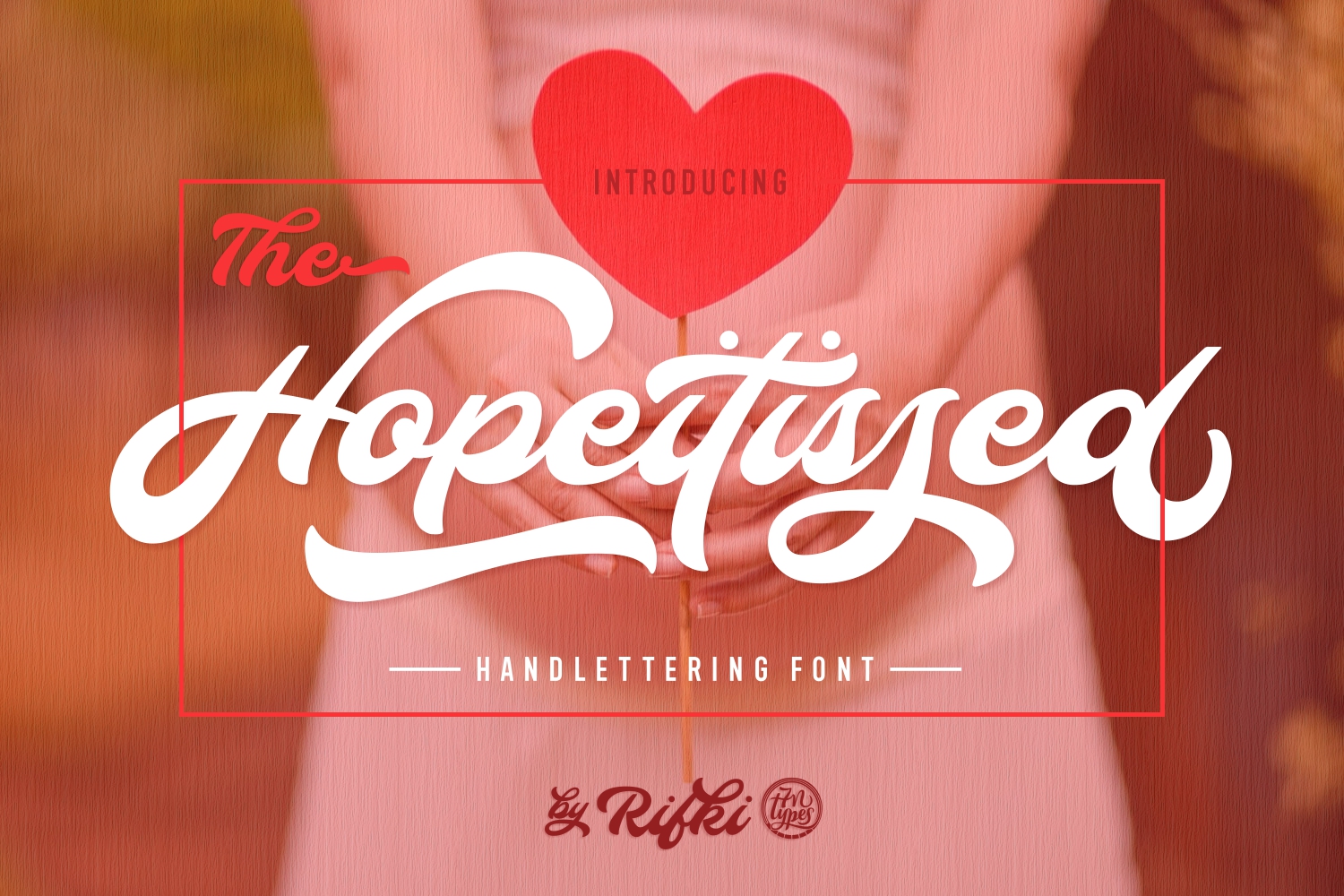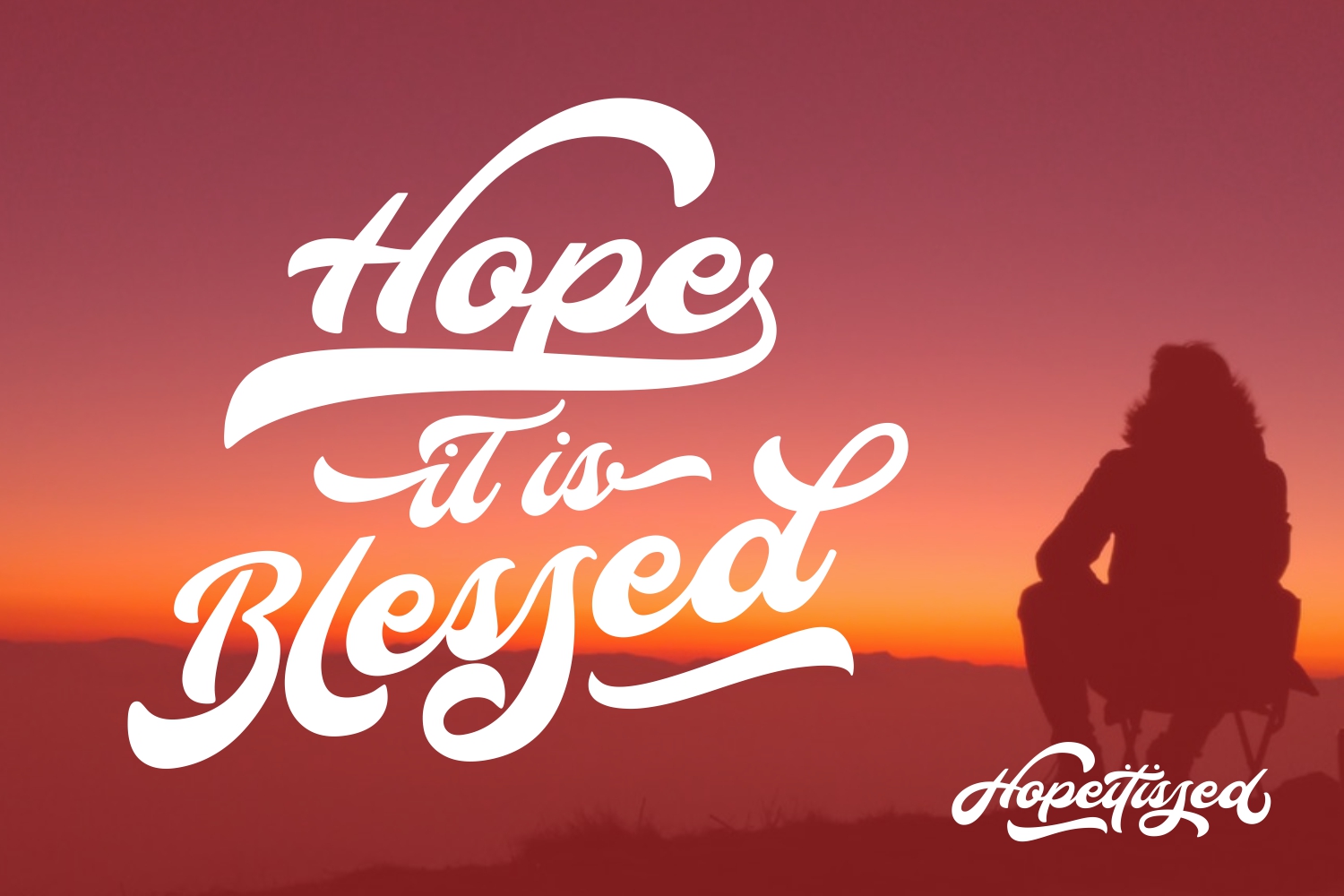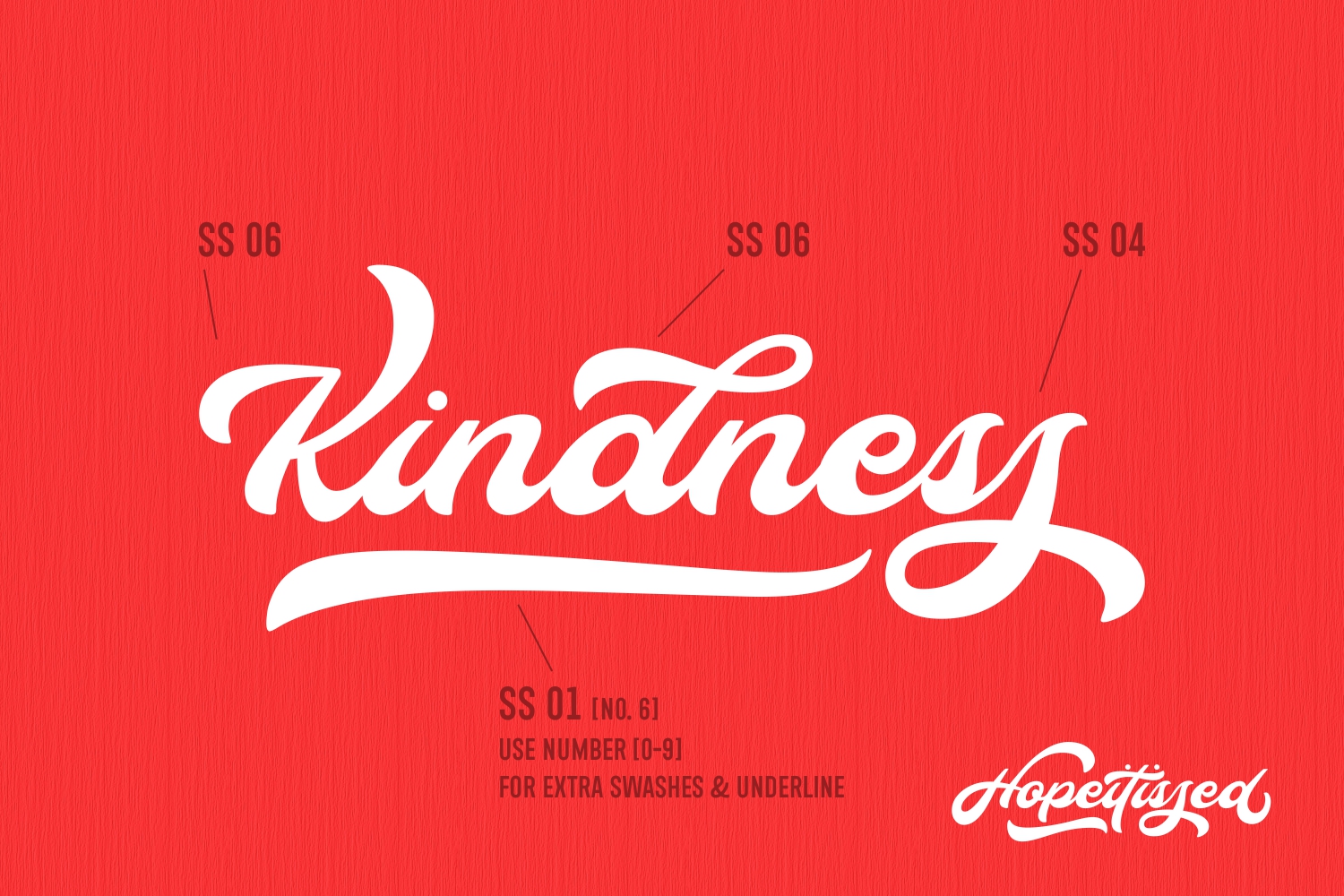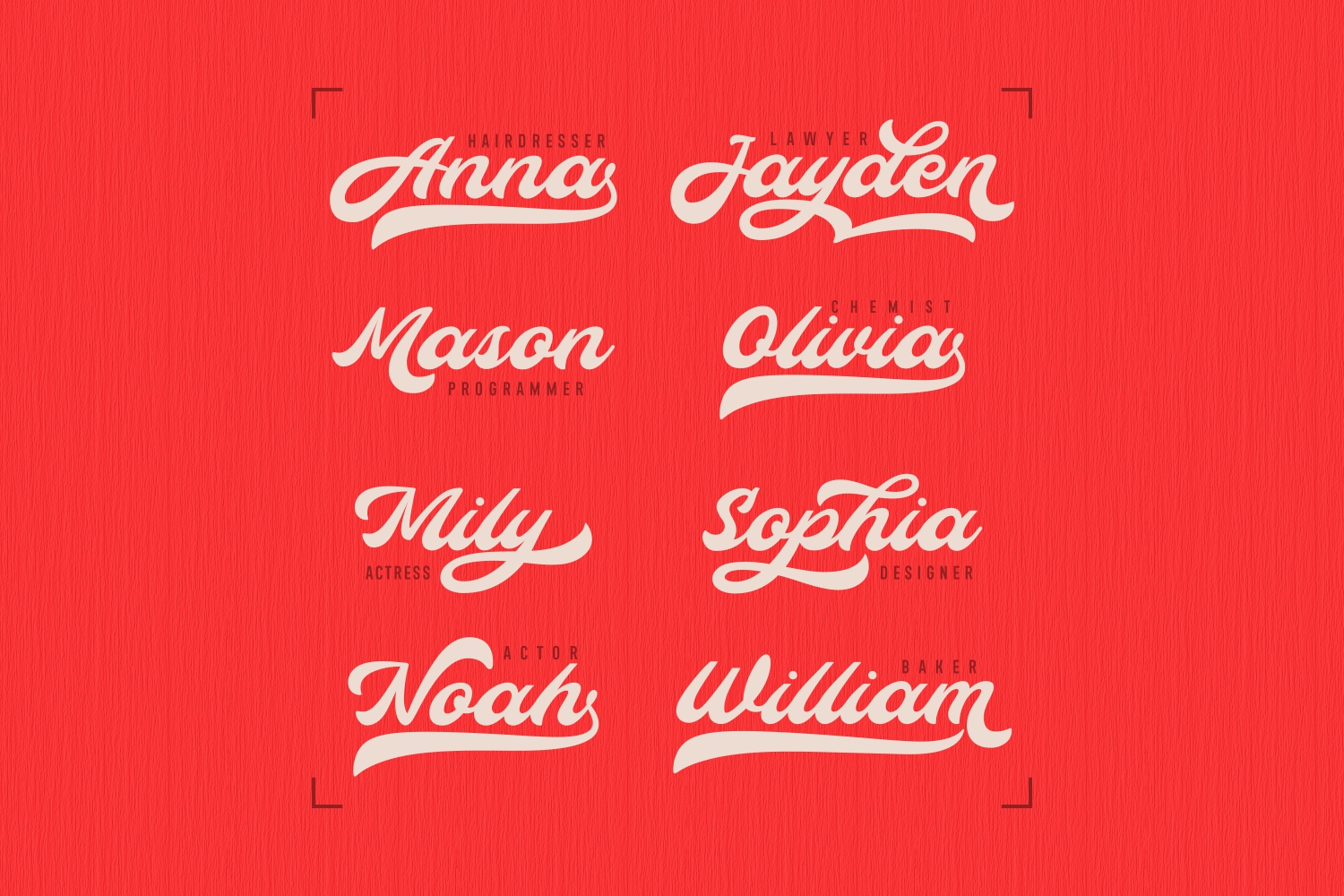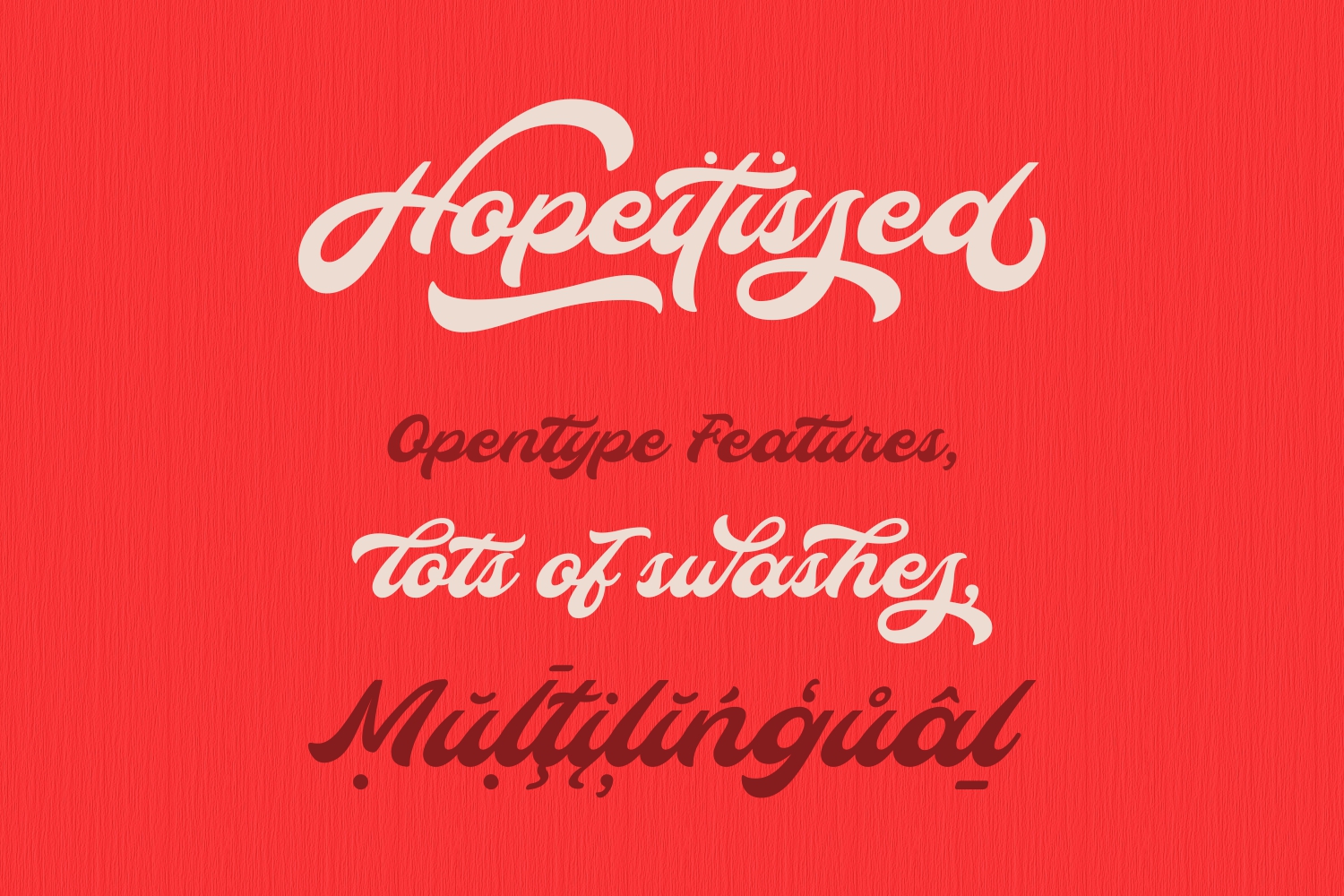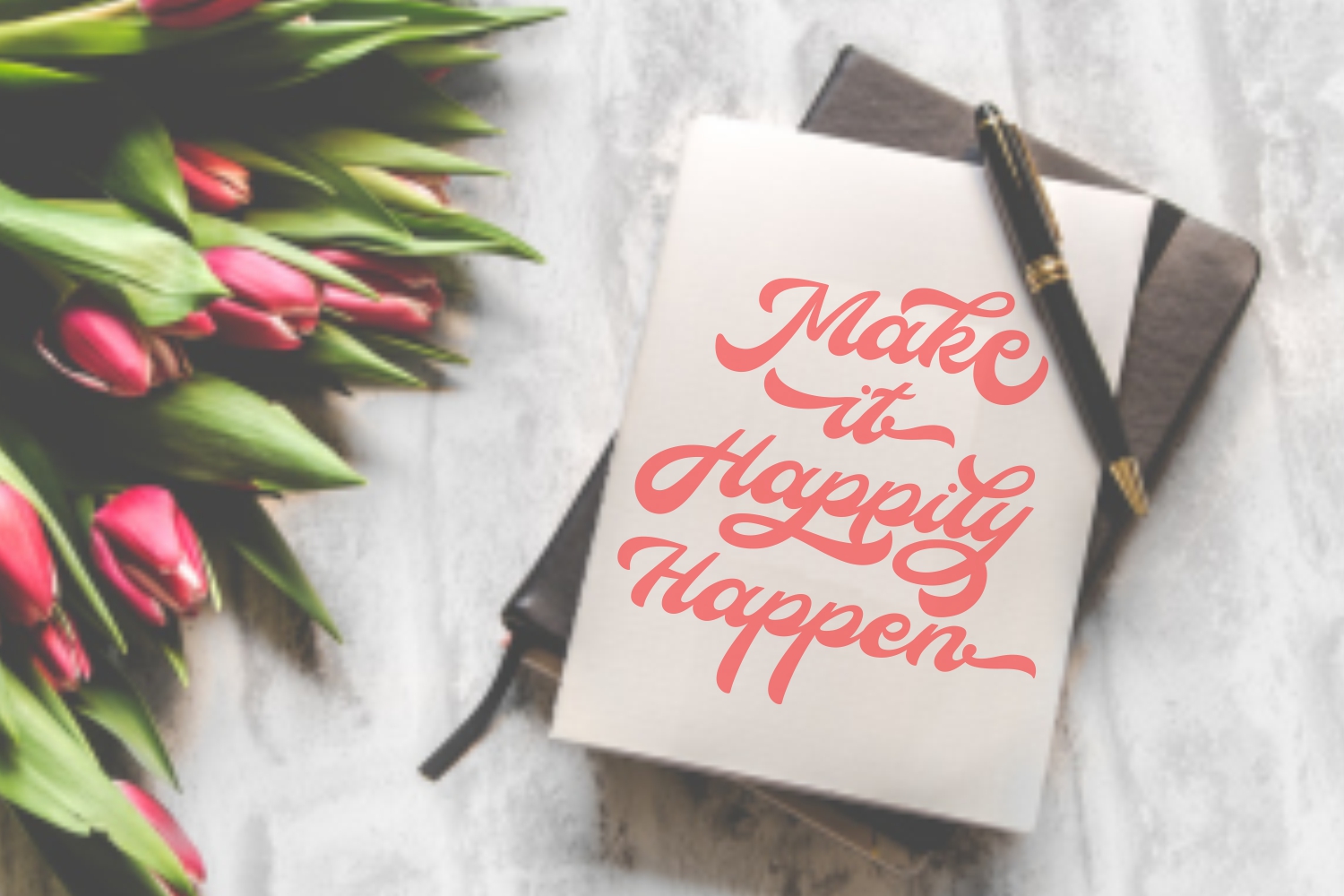
Hopeitissed Font
About Hopeitissed Font
Hopeitissed is a wonderfully stunning script font crafted in a retro-cool painterly style. Reminiscent of brands of yesteryear, this beautiful script is a smart way to give your designs a branded yet nostalgic feel.